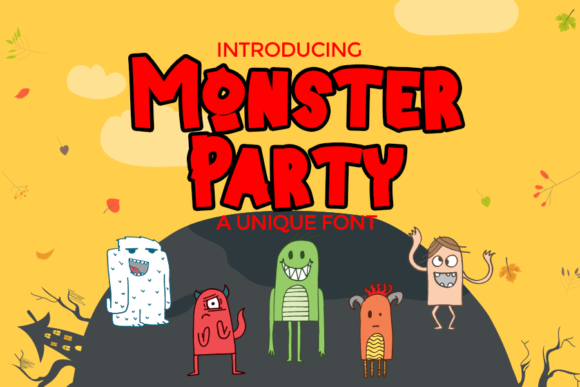
Monster Party Font
Introducing Monster Party, the font that embodies the spirit of celebration and fun! Step into a world of delightful designs with this thick lettered, playful display font.
With Monster Party, your creations will burst with infectious energy. Picture the whimsical charm it will bring to your cartoon-inspired designs, the excitement it will spark in children's games, and the joy it will infuse into any project seeking a touch of playful bliss.
But Monster Party is more than just a collection of charming characters; it's a gateway to limitless possibilities. Let your imagination run wild as you craft eye-catching business cards that leave a lasting impression, or create vibrant posters that invite laughter and joy.
For those with a love of the extraordinary, Monster Party is a font that ignites creativity. Its bold lines and playful nature will captivate your audience, making your designs unforgettable.
So why settle for ordinary fonts when you can embrace the extraordinary? Unleash the power of Monster Party and let your designs dance with delight!